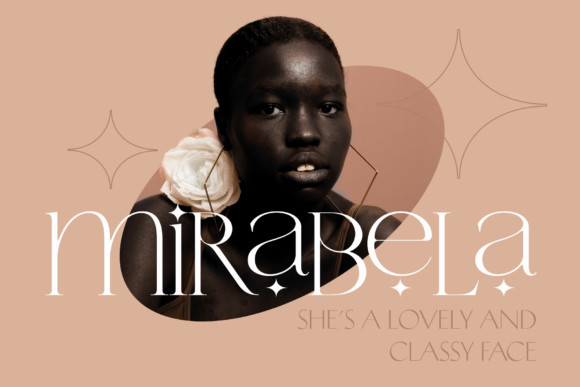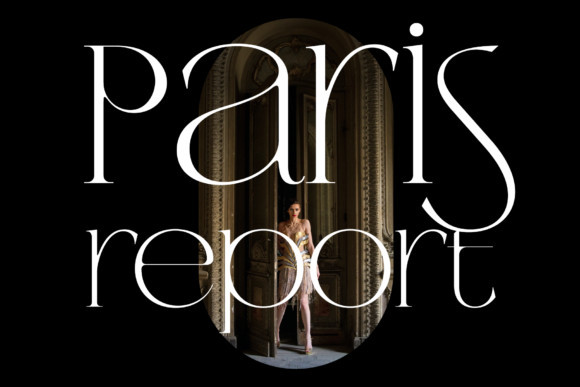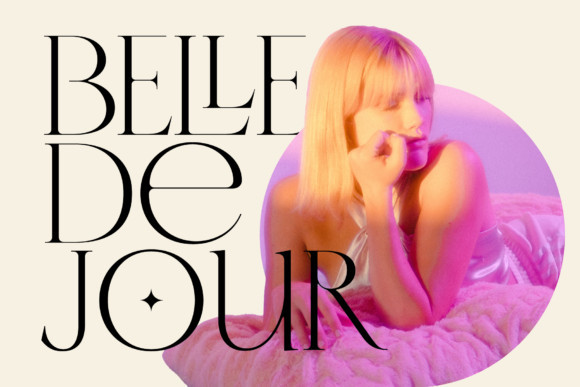
Mirabela Font
Mirabela is an elegant and classy serif font. Fall in love with its incredibly versatile style and use it to create gorgeous invitations, beautiful stationary art, eye-catching social media posts, and much more!